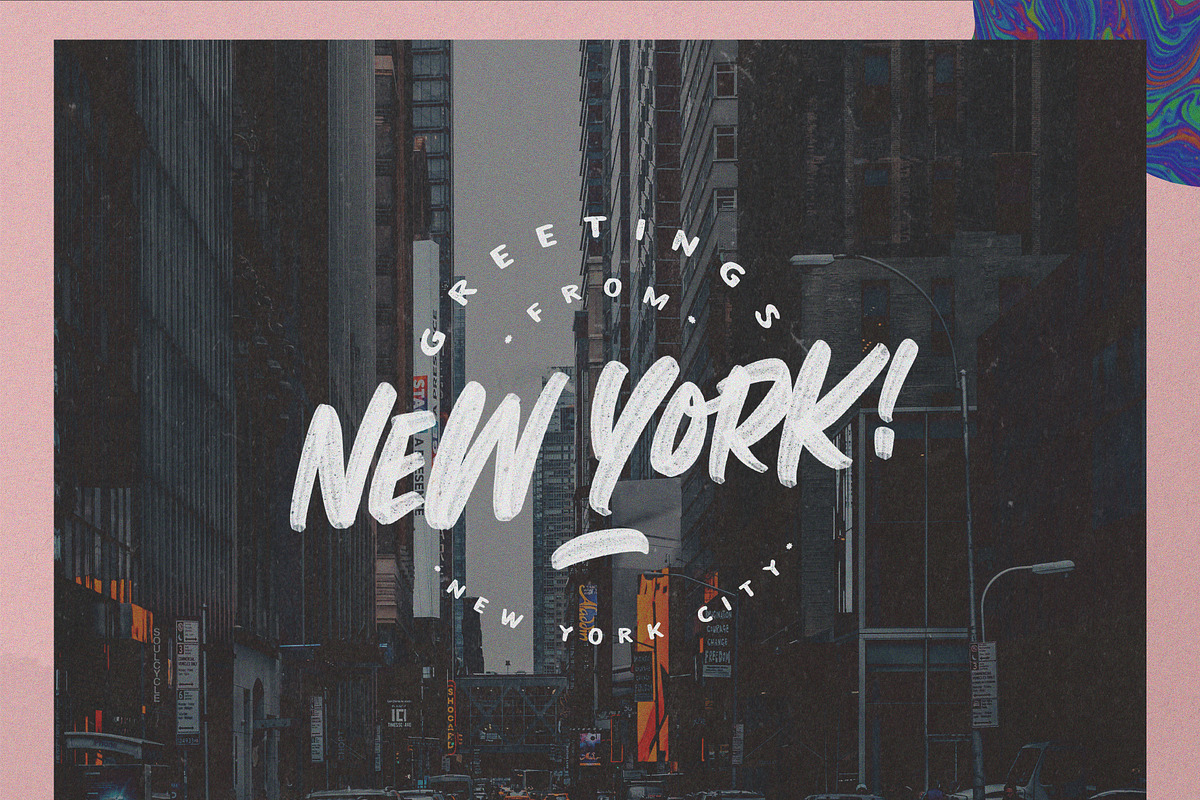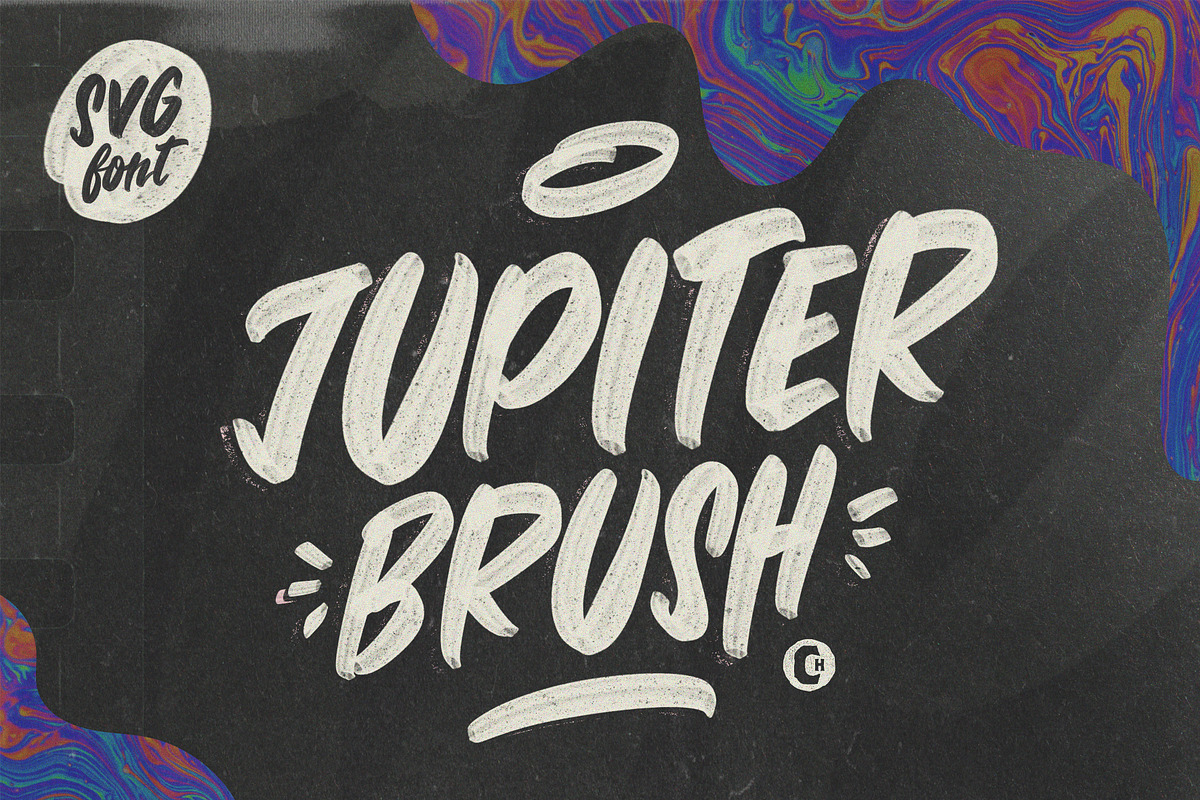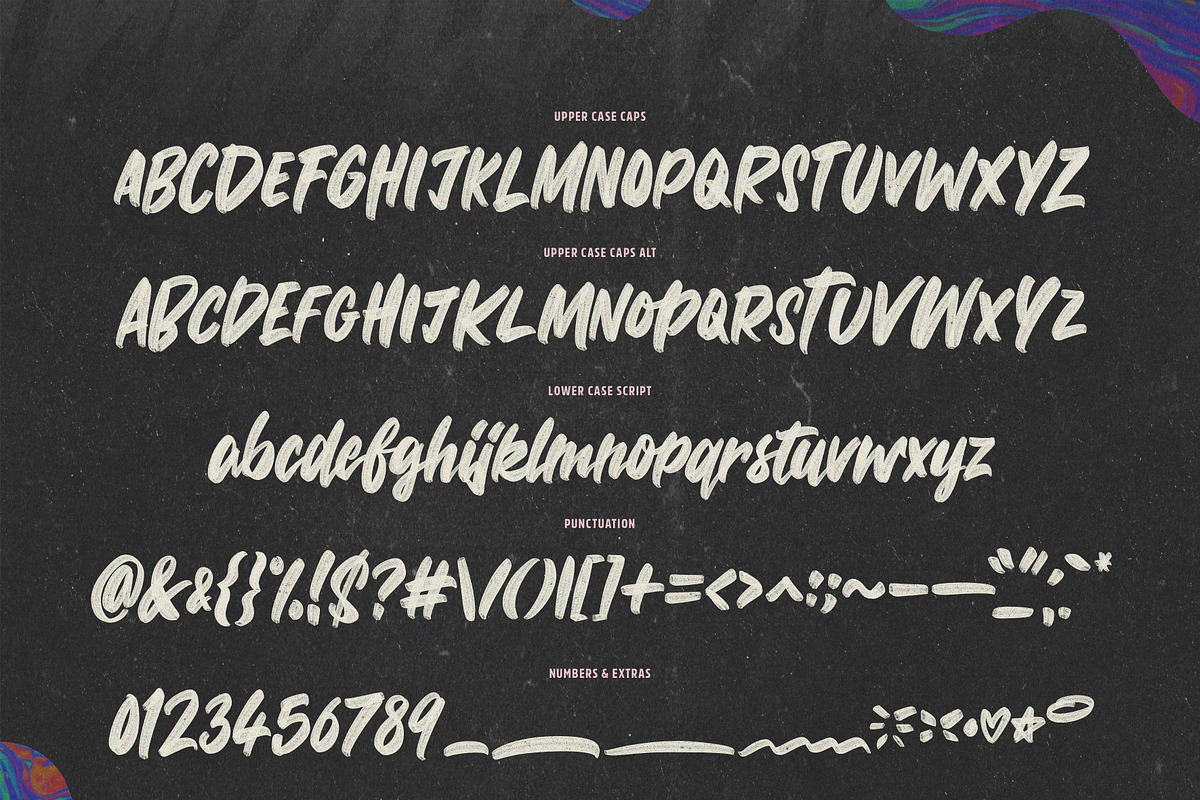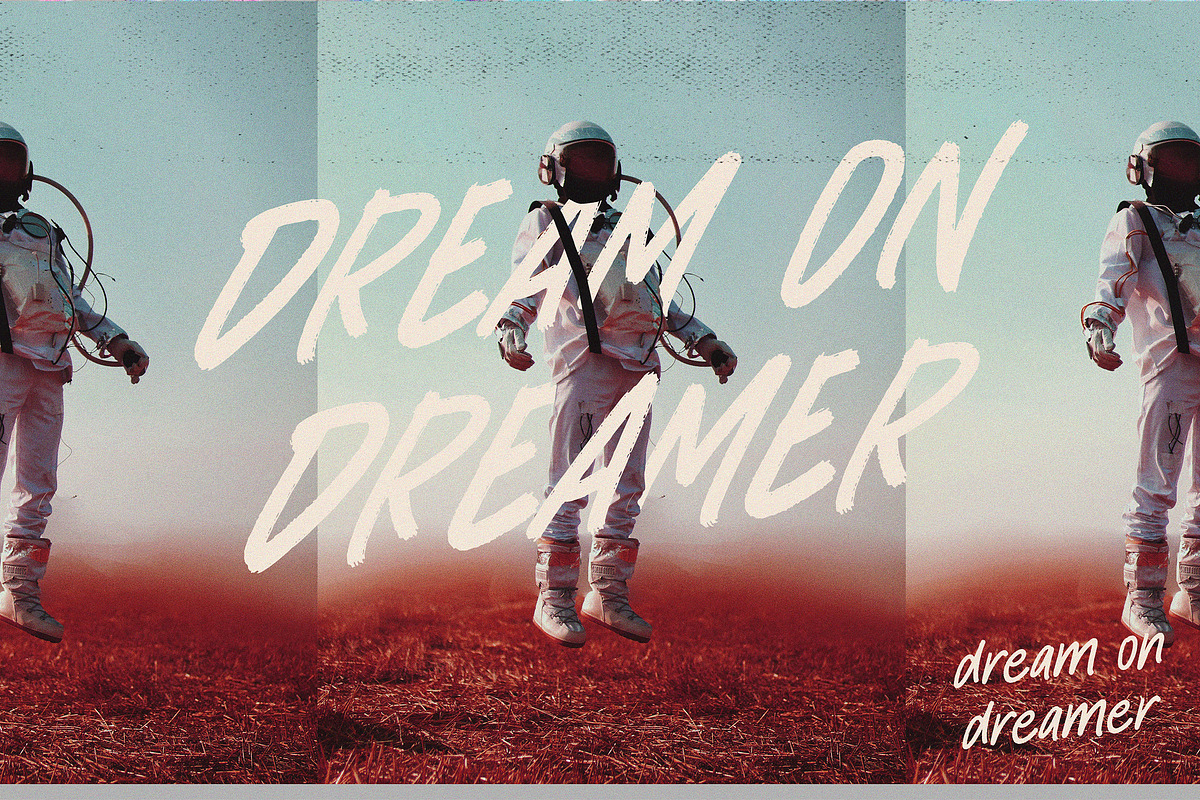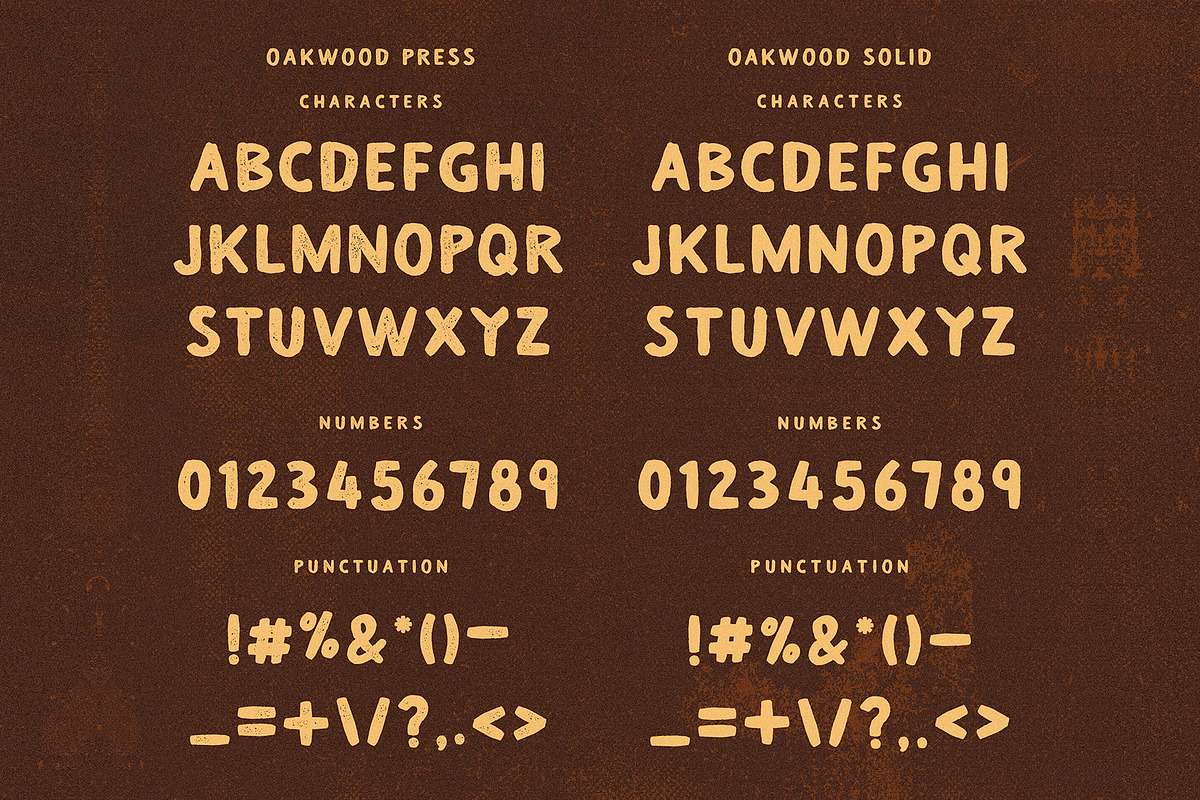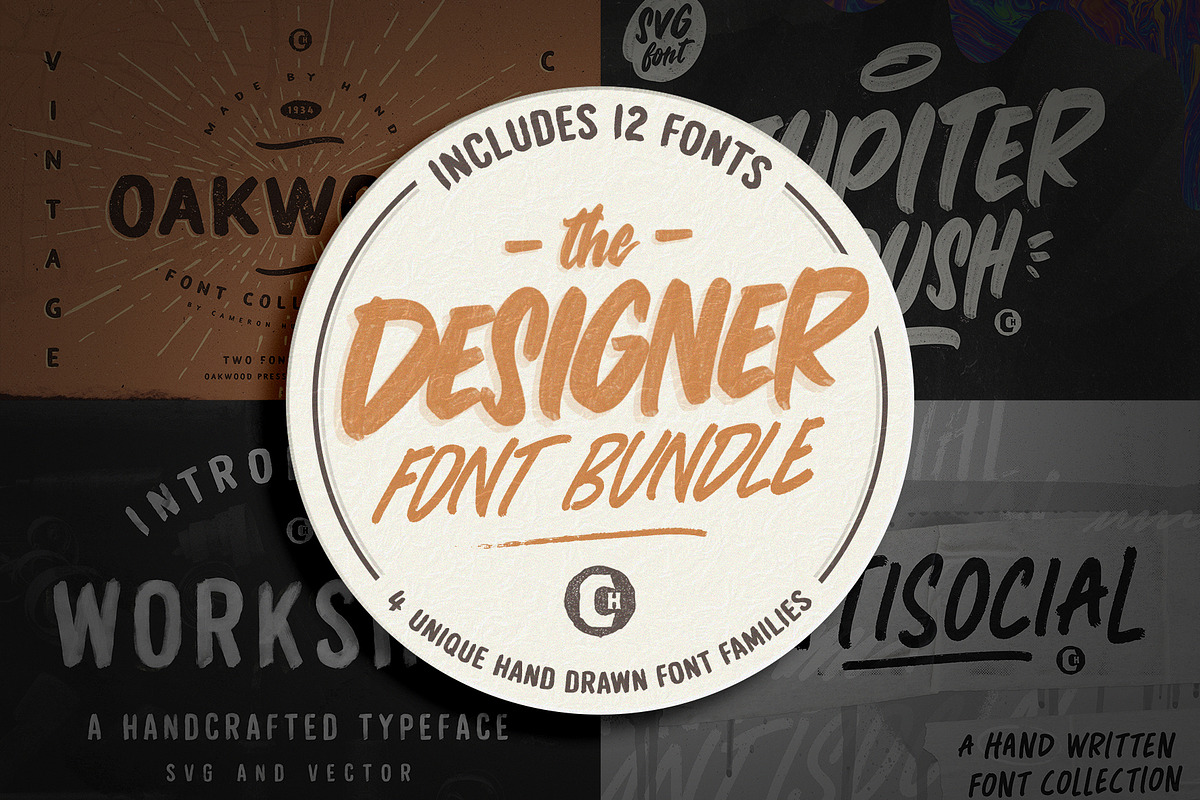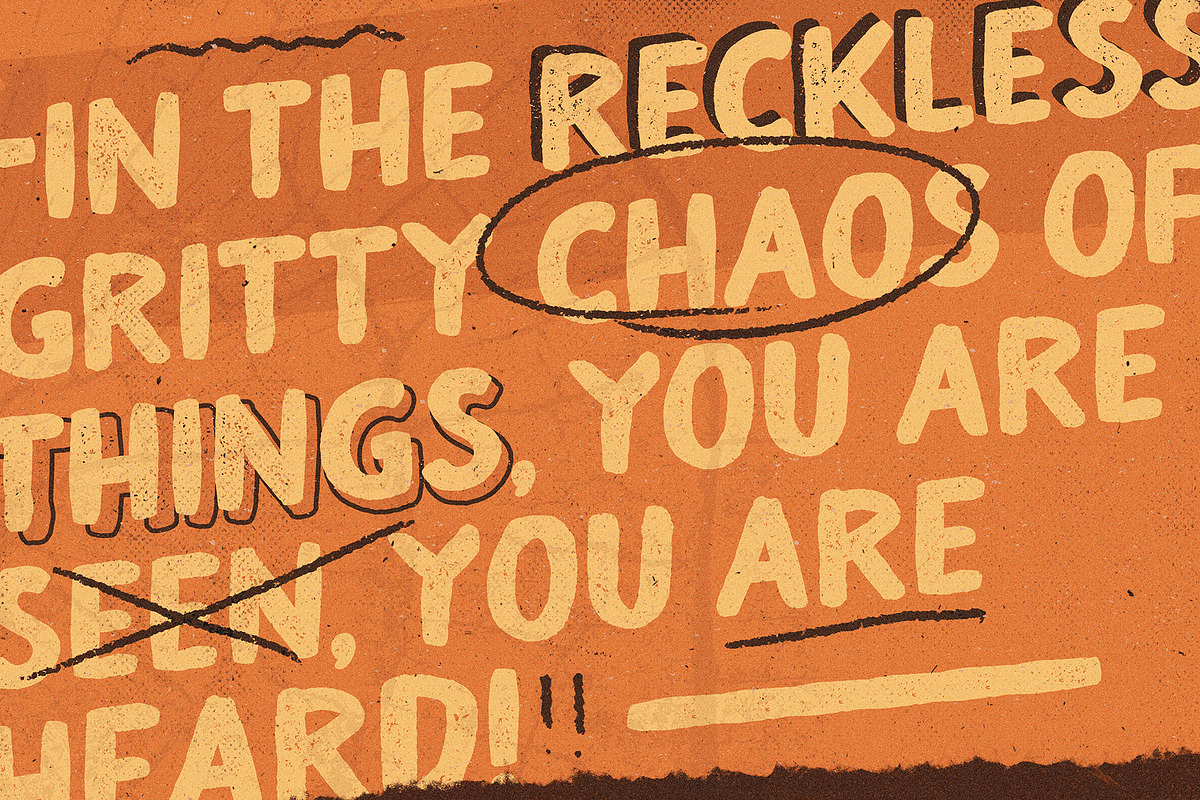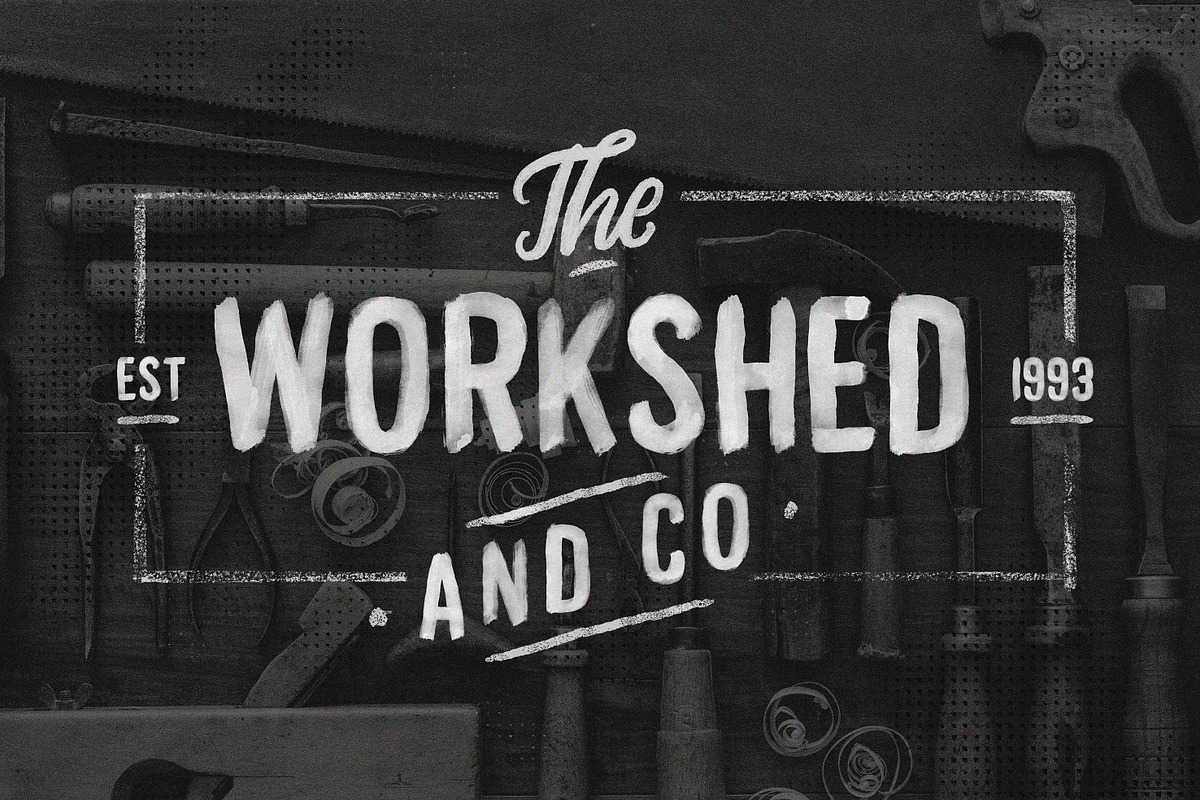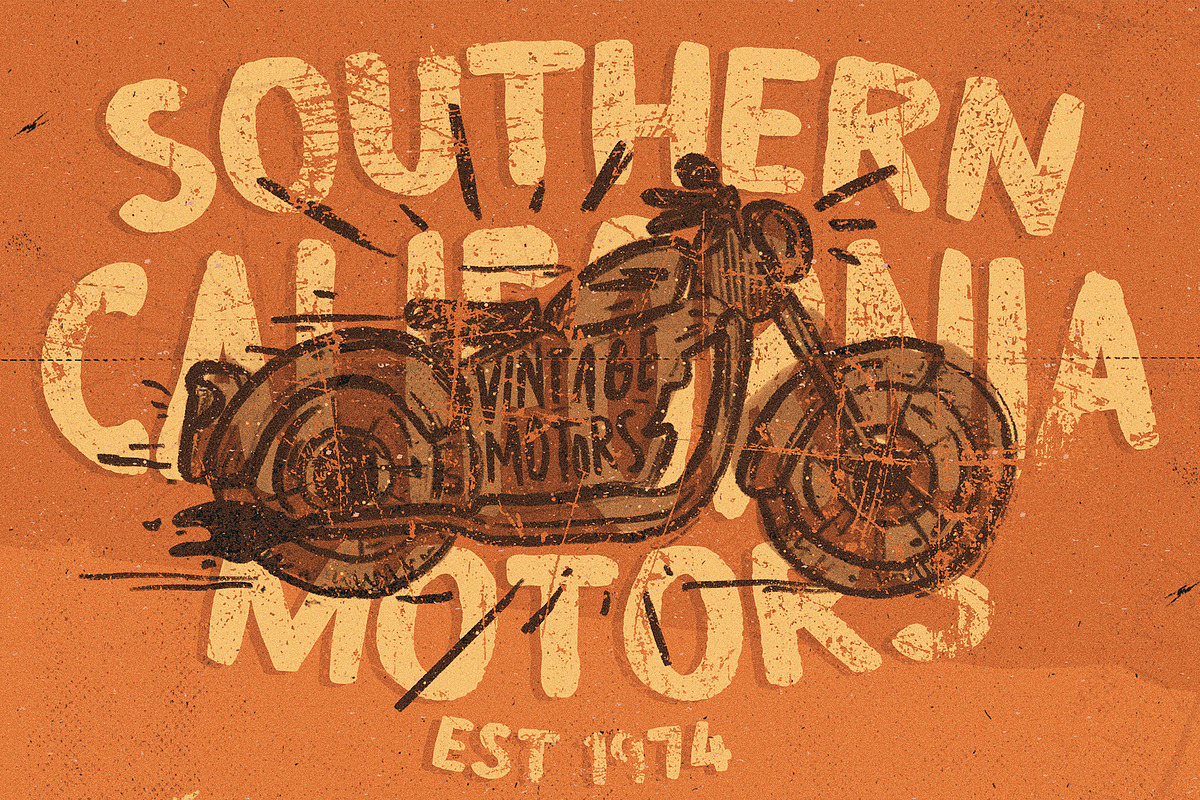
THE DESIGNER Font Bundle
Introducing "The Designer" Font Bundle
The Designer Font Bundle is a carefully curated group of recent handwritten Font Families that pair perfectly with one another. This is a must have bundle for anyone when starting out, all fonts are high quality and can be used for any project! This Bundle includes 4x Font families and 12x fonts + extras which I have been working on for 12 months.
Includes: Oakwood Press, Jupiter Brush (SVG), Antisocial Font, Workshop Font (SVG.
Features: All Caps Fonts + Alternates / Lowercase / Numerals / Punctuations / Extras.